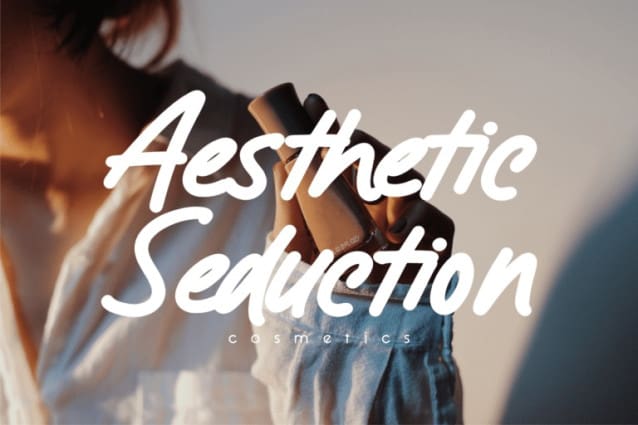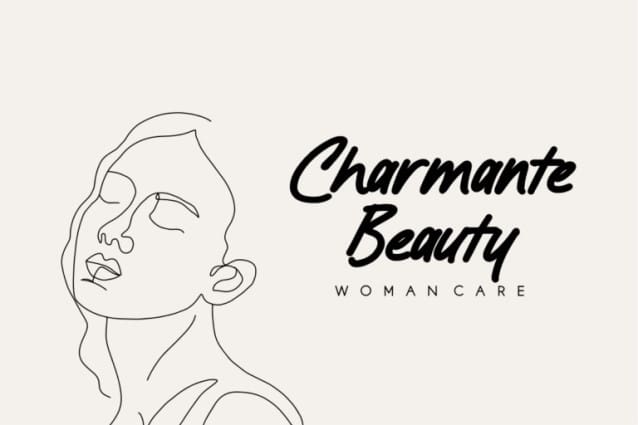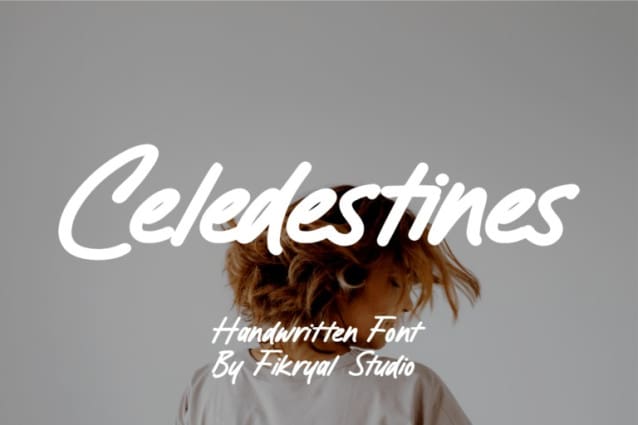
Celedestines Hand Font
Celedestines Hand Font – Handwritten Display Font is a beautiful and unique typeface, designed with an elegant and artistic handwriting style. Each character in this font looks like it was taken directly from calligraphy artwork, with fine details and beautiful curves.
The font has a romantic and mysterious impression and is perfect for use in designs that require a feminine and elegant touch, such as wedding invitations, greeting cards, posters, logos, and more. With its flexibility, Celedestines Handwritten Display Font can be customized with various sizes and colors to create a truly unique and attention-grabbing look. With proper use, this font can provide a stunning artistic touch and make your designs stand out from the rest.